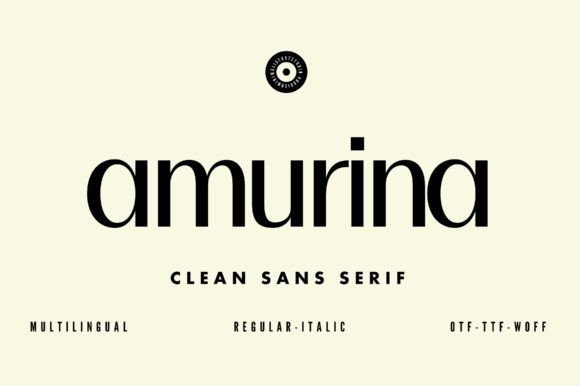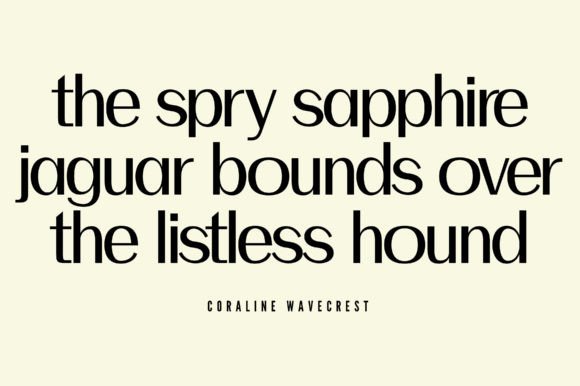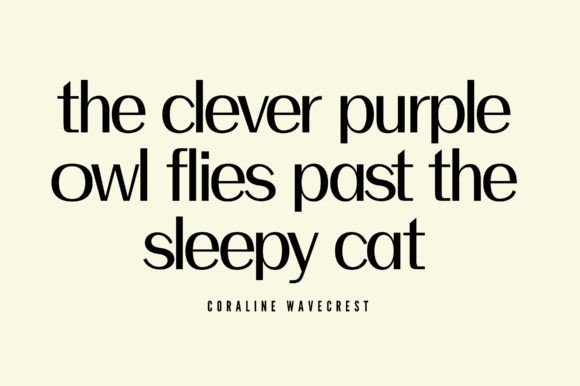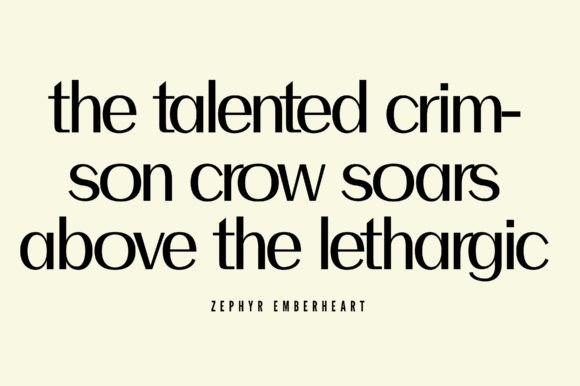
Amurina Font: Modern Minimalist Sans Serif for Branding & Logo Design
About the Amurina Font
Elevate your designs with Amurina Font, a font that combines sophistication with readability. Introducing “Amurina” – the ultimate minimalist, chic, and modern sans serif grotesque typeface. With clean lines and versatile beauty, this timeless font enhances readability and creativity in any design project. Embrace sophistication and elevate your creations with “Amurina” – your key to effortless elegance this summer.
Amurina’s clean lines and geometric structure make it ideal for headlines, logos, and short text blocks in branding materials and posters. Its minimalist nature ensures it won’t overpower imagery, making it a strong choice for packaging design where clear product information is key. However, its limited x-height makes it less suitable for extended body copy or UI elements requiring high readability at small sizes.
For a sophisticated pairing, consider using a classic serif like Garamond or a more modern serif such as Lora for supporting text. To create a bolder contrast, a geometric sans-serif like Futura or a playful script like Pacifico can be effectively combined, depending on the desired mood.
Amurina projects a modern and elegant personality, lending itself well to brands emphasizing sophistication, simplicity, and a touch of understated luxury. Avoid using it in contexts requiring a high level of informality or playfulness.